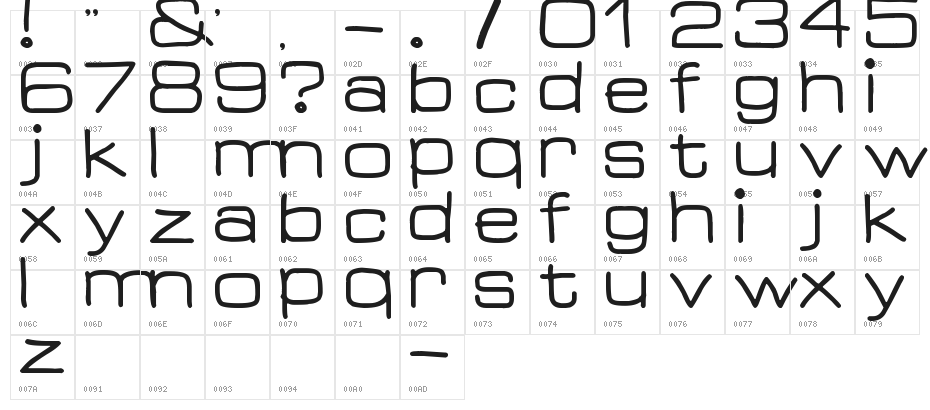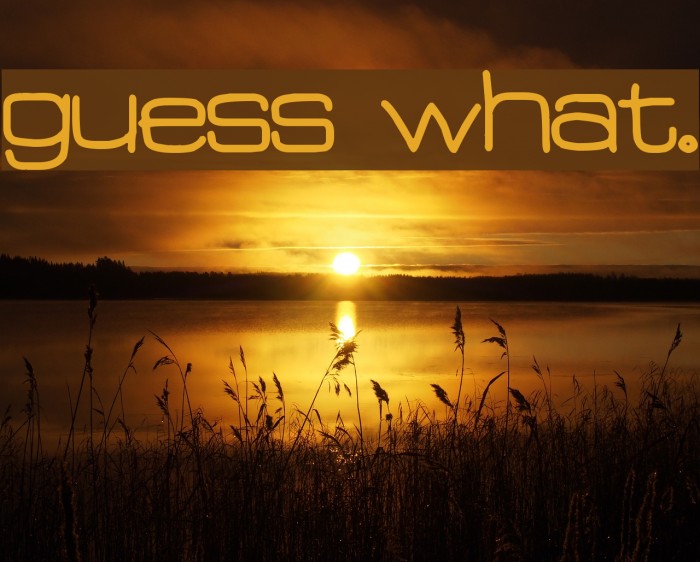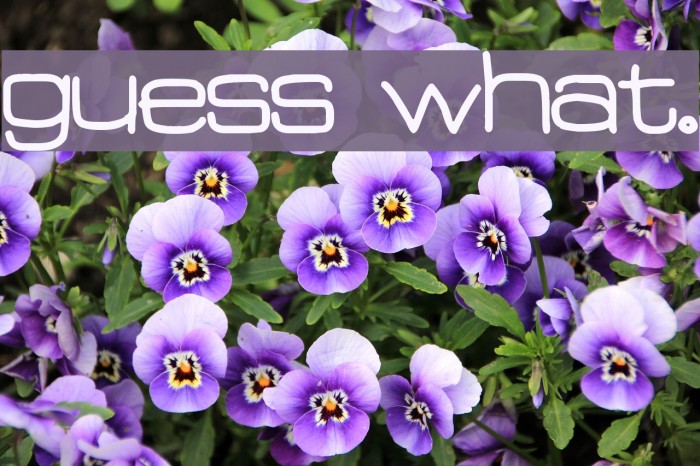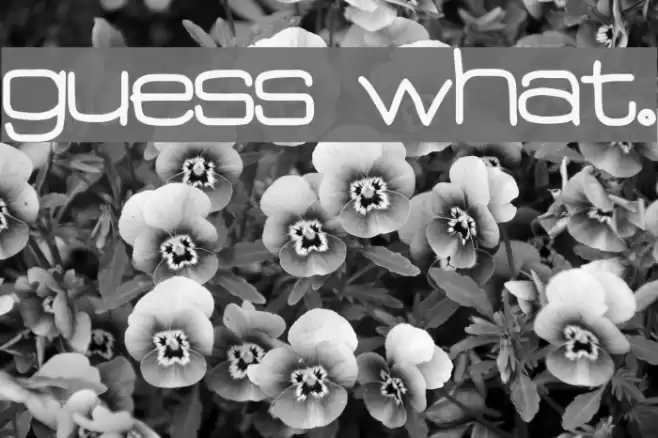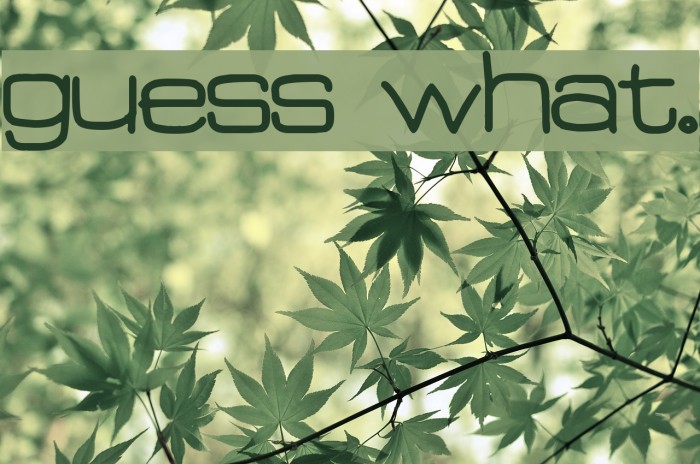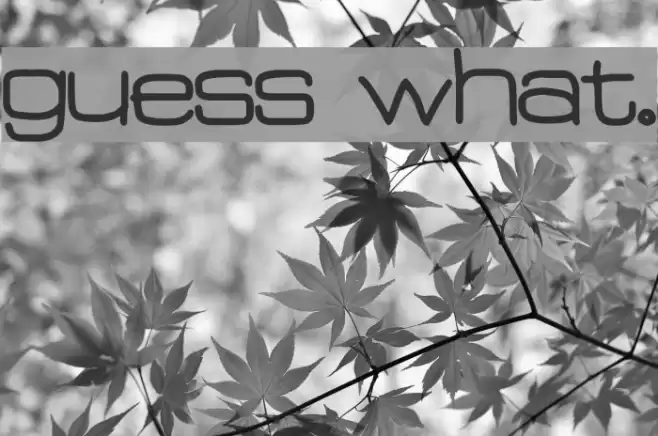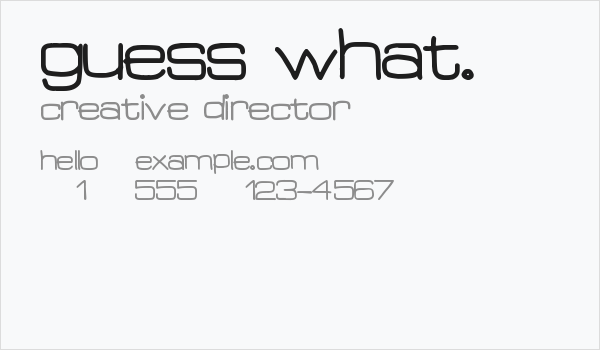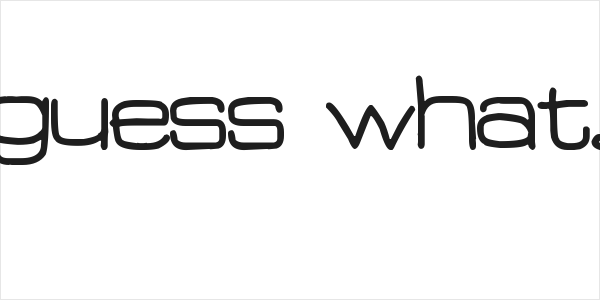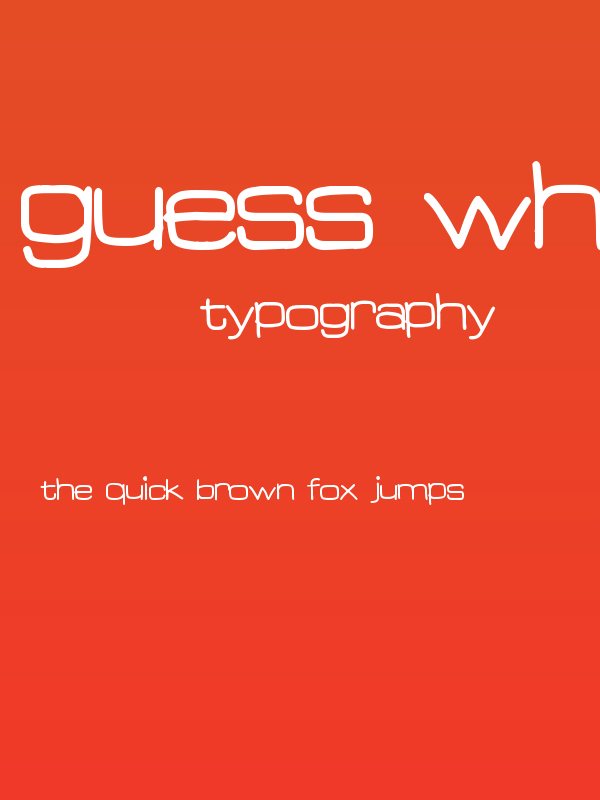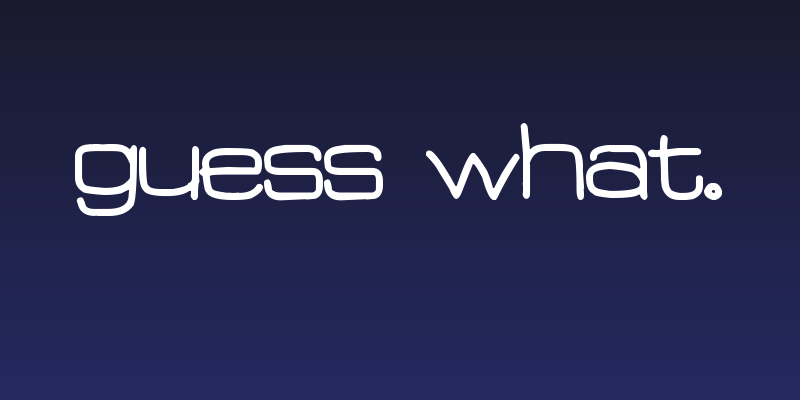
Guess What. Font
Guess What. Description
This font features a modern, rounded style with a geometric influence. The characters are evenly spaced, with a consistent stroke width that gives it a clean and uniform appearance. The rounded edges and smooth curves provide a friendly and approachable feel, making it suitable for a variety of applications. The numerals and special characters maintain the same design ethos, ensuring a cohesive look across all text elements. Its simplicity and clarity make it ideal for digital interfaces and print media where readability is key.
| Proposed Projects | Ideal for digital interfaces, branding, advertising, and print media where clarity and modern aesthetics are desired. |